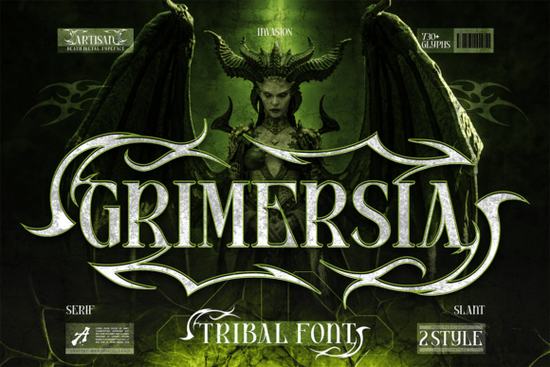
If you're looking for a typeface that commands attention with bold structure and dark, artistic flair, Grimersia Font delivers exactly that. Designed for projects where intensity and uniqueness matter, this serif font draws from tribal motifs, gothic traditions, and mythic storytelling to create something truly distinctive. Whether you’re crafting album art, branding a streetwear label, or designing a fantasy-themed poster, Grimersia adds a layer of drama that feels both ancient and modern.
What Makes Grimersia Stand Out?
Grimersia isn’t just another serif font it’s built for impact. The sharp serifs combined with aggressive ornamental swashes give it a powerful presence on the page. It balances elegance with edge, making it perfect for designs that need to feel sacred yet rebellious. You’ll notice how each character carries weight, almost like carved stone or inked ritual symbols.
Who Uses This Font? Real-World Applications
Designers working in niche creative spaces find Grimersia especially useful. Here’s how it’s being used:
- Music & Album Covers: Perfect for metal, rock, and dark electronic genres where the visual vibe matches the sound.
- Gothic & Dark Aesthetic Branding: Use it for boutique labels, event posters, or fashion lines with a moody, dramatic tone.
- Tattoo-Inspired Designs: The tribal alternates and strong forms echo traditional tattoo lettering styles.
- Streetwear & Edgy Fashion: Adds instant attitude to labels, tags, and packaging.
- Merchandise & Poster Design: Great for limited-edition prints, collectible items, and promotional materials.
- Fantasy & Mythic Visuals: Ideal for game assets, book covers, or concept art needing a mythical touch.
Features That Make Designing Easier
Grimersia comes with a full set of characters: uppercase and lowercase letters, numbers, punctuation, and multilingual support. There’s also a dedicated Characters Map included, which helps you quickly locate alternates and special glyphs without digging through menus.
You’ll appreciate the thoughtful inclusion of ligatures and stylistic alternates. These aren’t just decorative they let you fine-tune your design so every word feels intentional. For example, swapping in a tribal-style “A” or a slanted “G” can instantly shift the mood of your layout.
How It Compares to Similar Fonts
If you’ve explored blackletter fonts before, you might have seen options like Malvoid, Archer, or Antifight. While those are excellent choices for medieval or ceremonial looks, Grimersia leans more into modern edginess with its dynamic swashes and structural boldness.
Unlike some older-style blackletter fonts that feel rigid or overly ornate, Grimersia maintains clarity even at smaller sizes. Its clean construction ensures readability while still packing visual punch a balance hard to achieve.
Final Thoughts: Is Grimersia Right for Your Project?
If your work thrives on atmosphere on visuals that tell a story before a single word is read then yes, Grimersia is worth adding to your toolkit. It’s not a font for every project, but when the moment calls for mystery, power, and a hint of danger, it’s one of the most effective tools you can use.